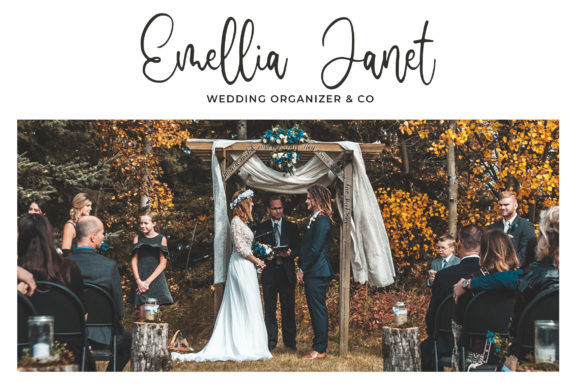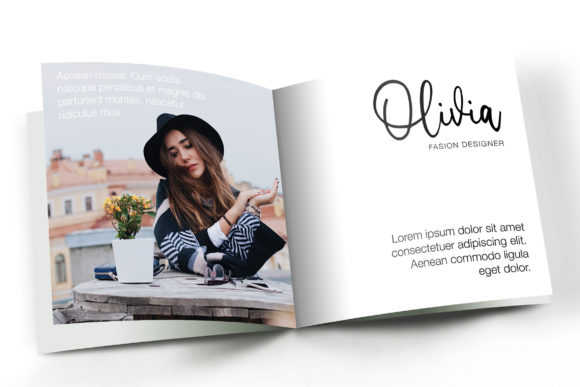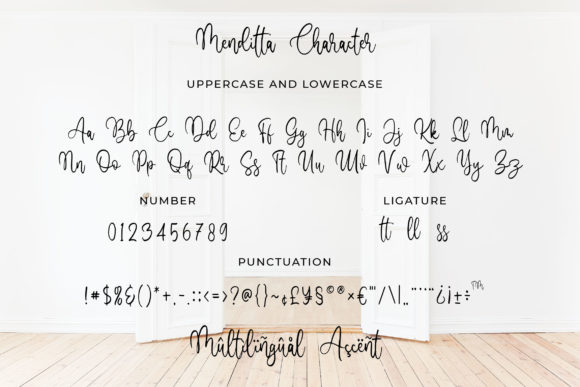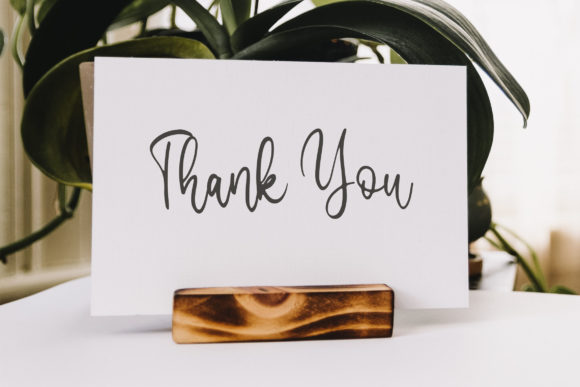
Menditta Font
About Menditta Font
Menditta is a sweet and simple script font with a romantic twist. Use it to turn any design idea into a true standout!